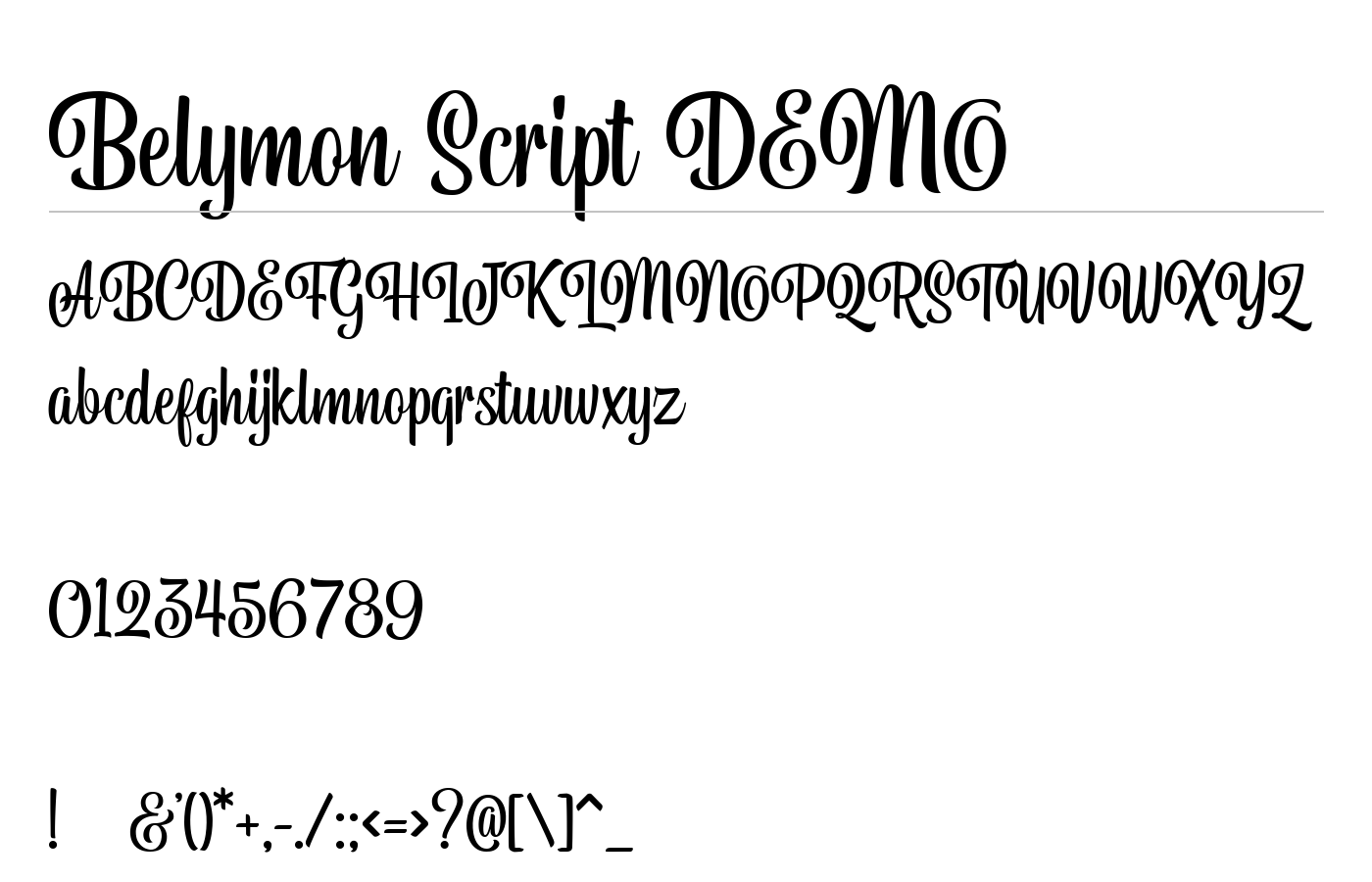
Belymon Script DEMO is a lively and elegant script font featuring fluid, brush-like strokes with medium thickness and a slightly condensed feel. Its playful uppercase letters exhibit charming swirls and unique flourishes, while the lowercase characters remain legible and smooth, making it ideal for distinctive branding, invitations, or creative headlines. The font's friendly yet refined style lends itself well to projects that want to convey warmth and personality with a touch of sophistication.
Belymon Script DEMO Font
About Belymon Script DEMO Font